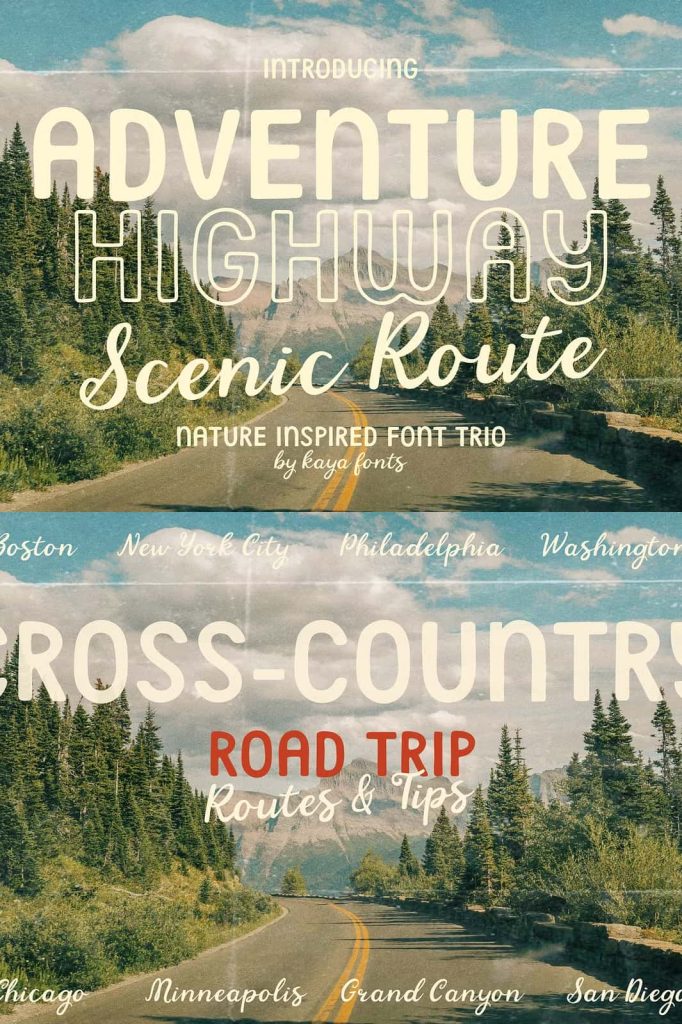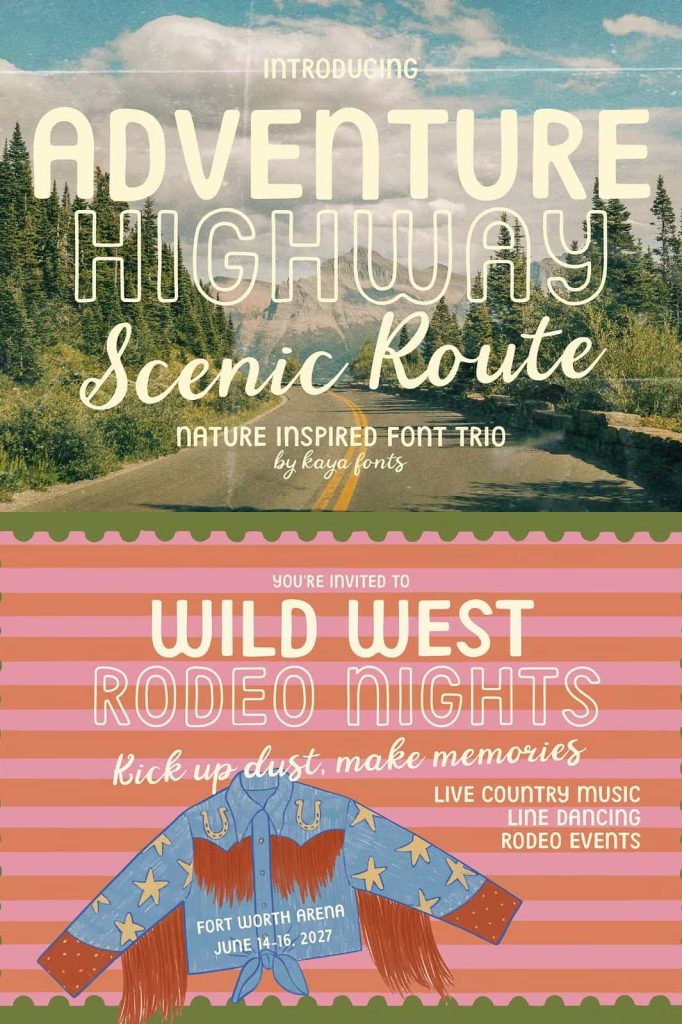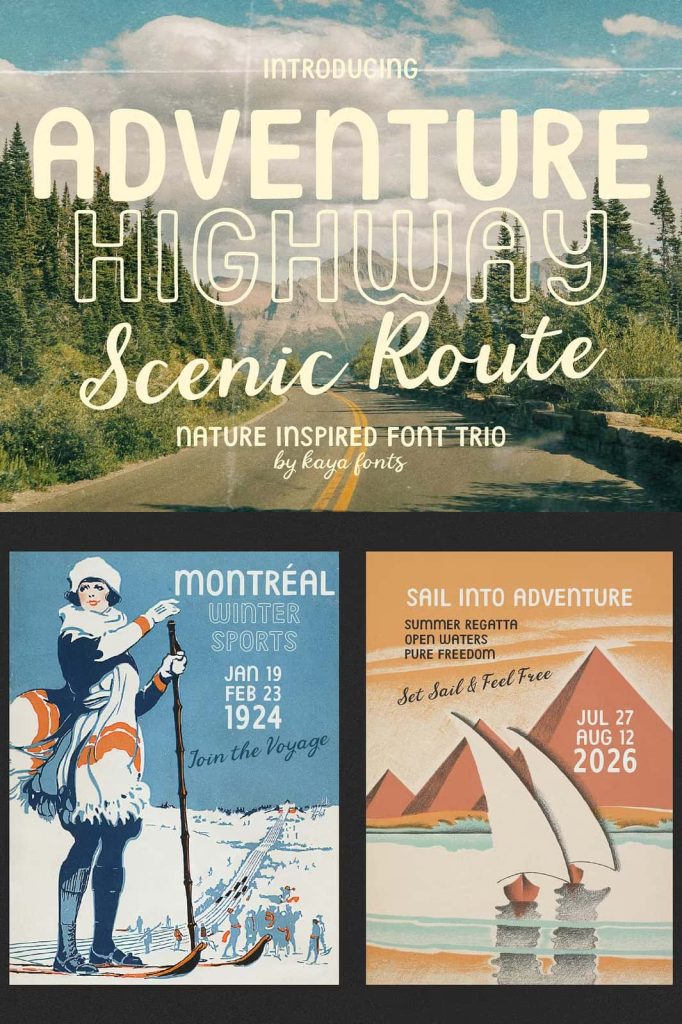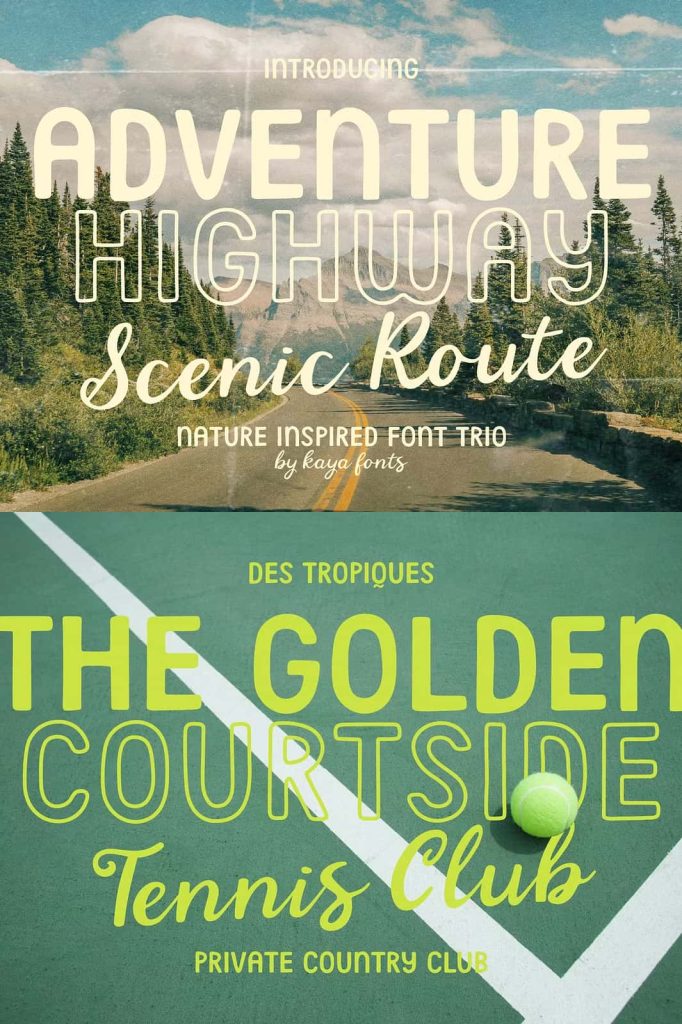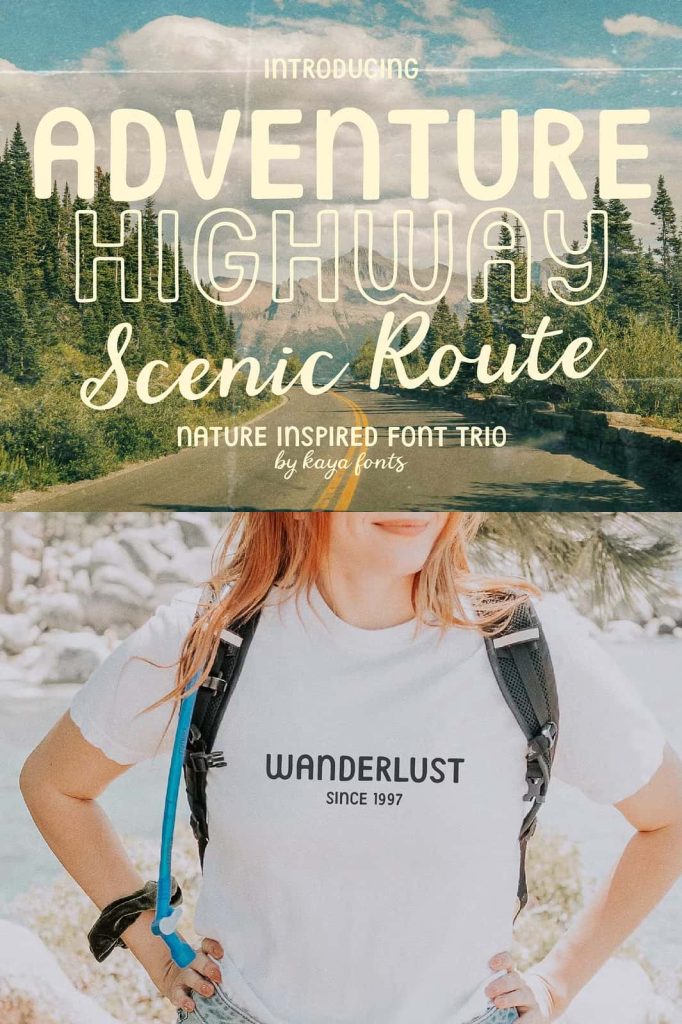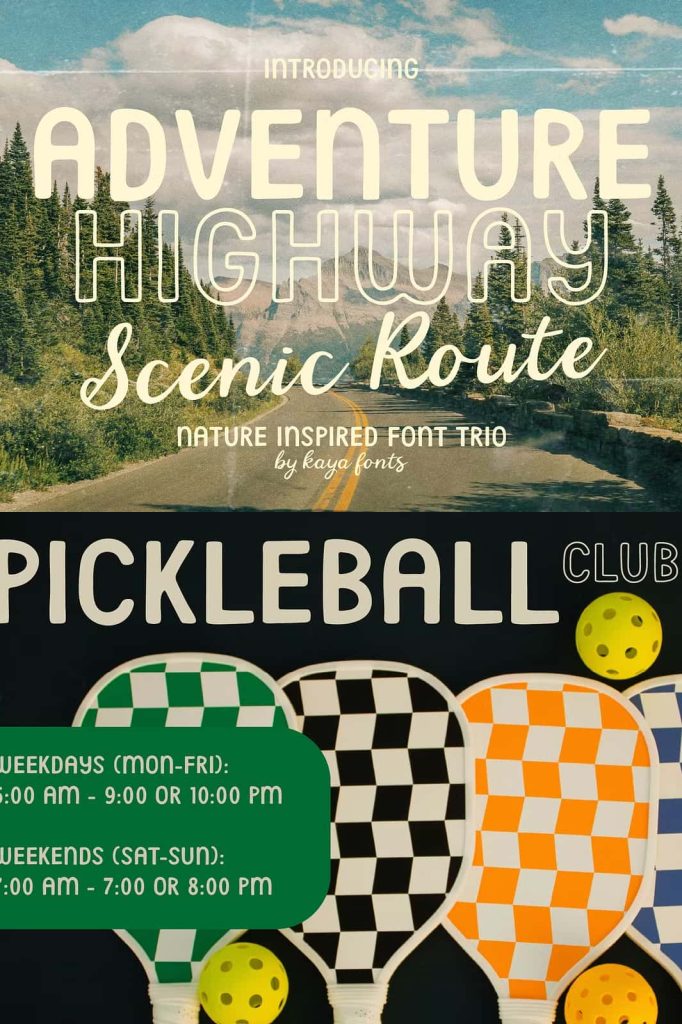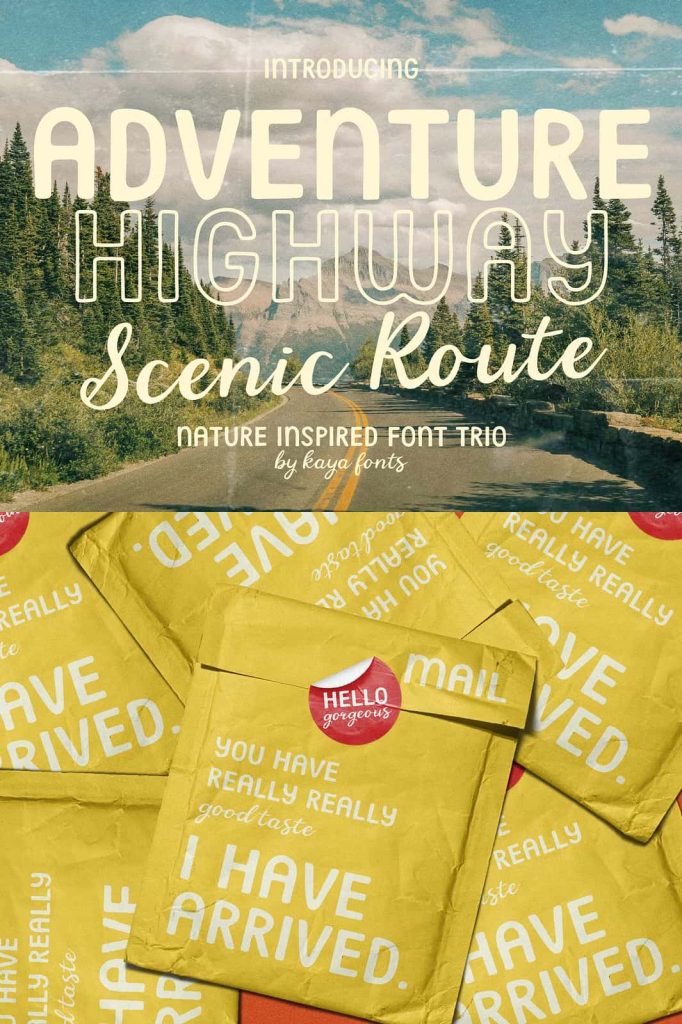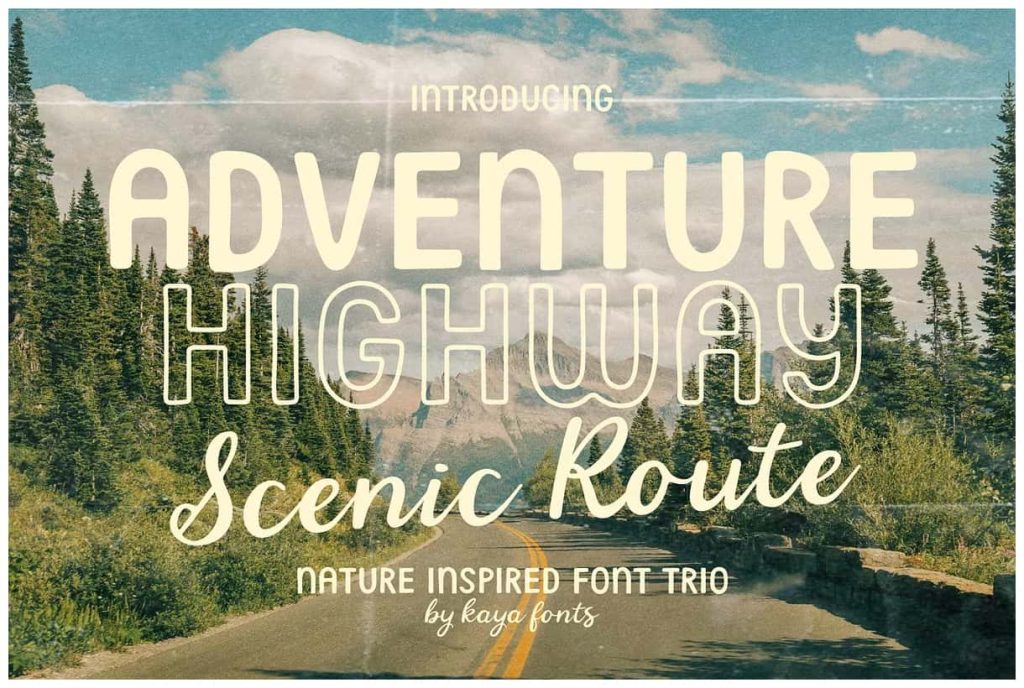
Adventure Highway Retro Nature Font
Adventure Highway is a versatile font collection designed with an expressive, down-to-earth vibe. Inspired by scenic road trips, retro roadside charm, and the great outdoors,